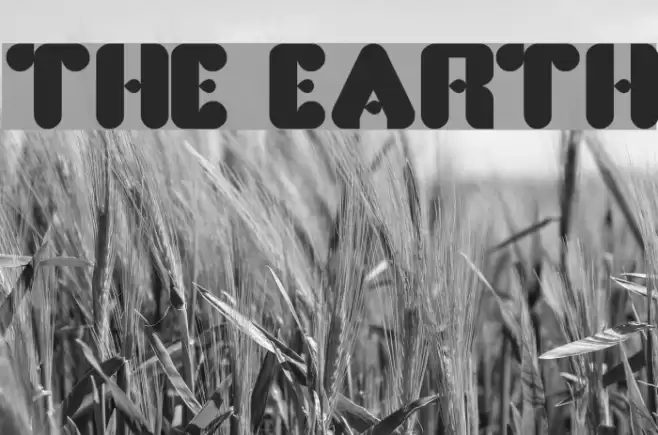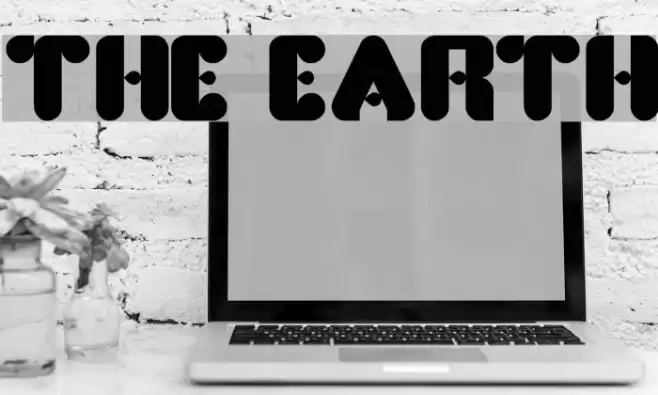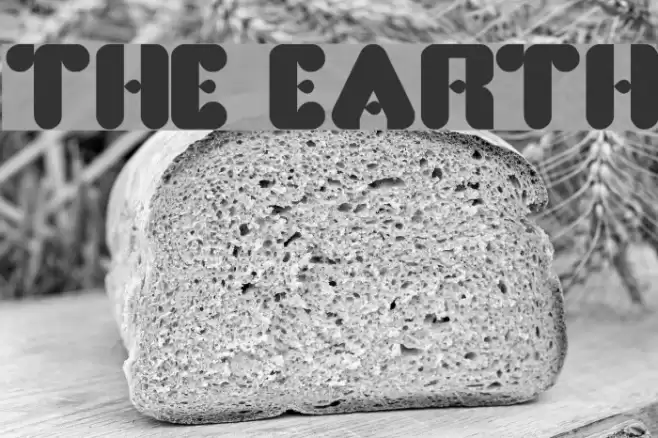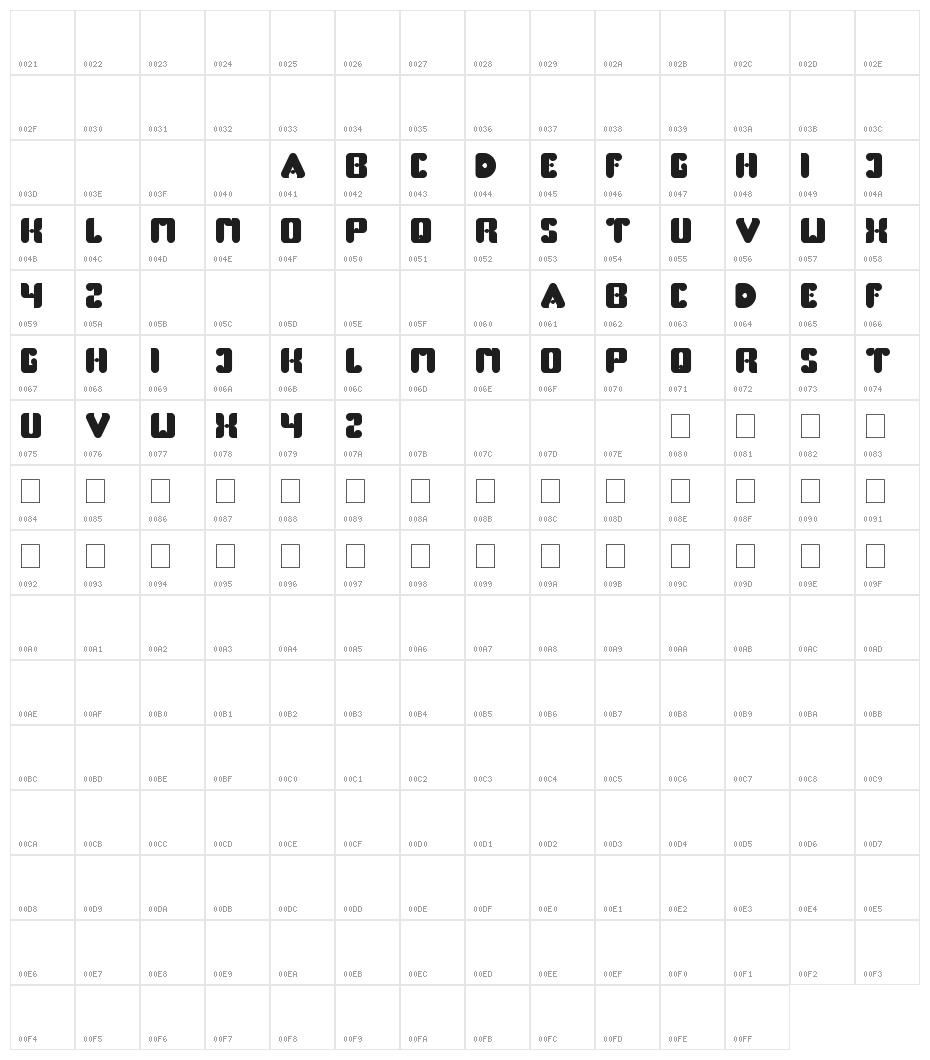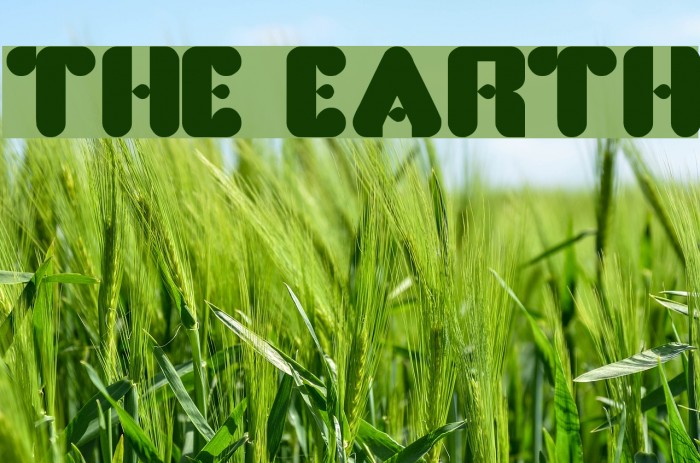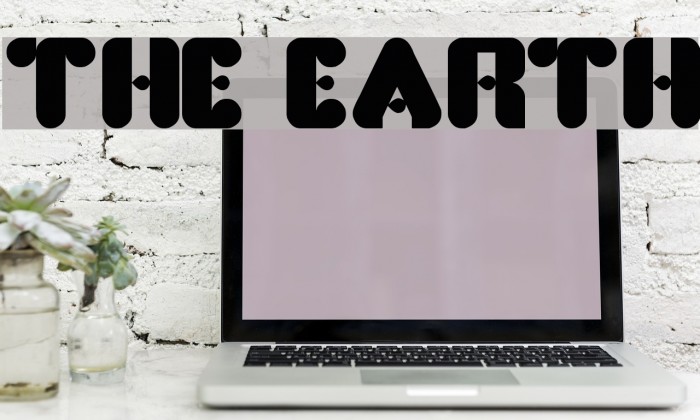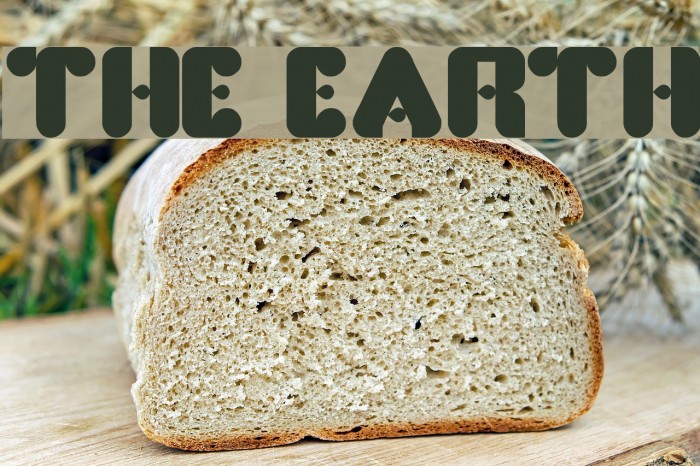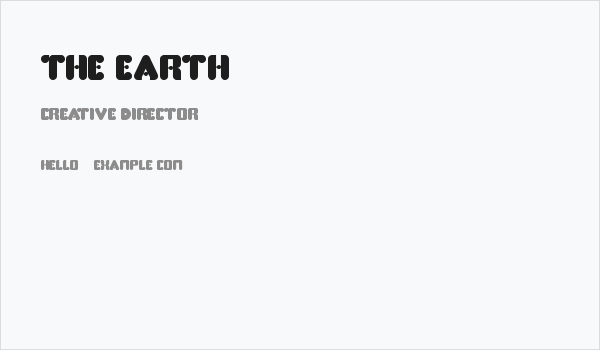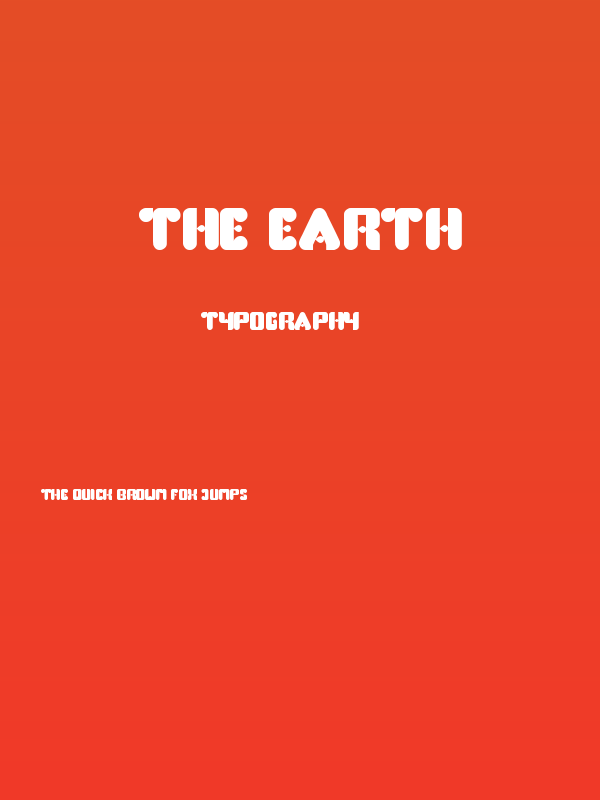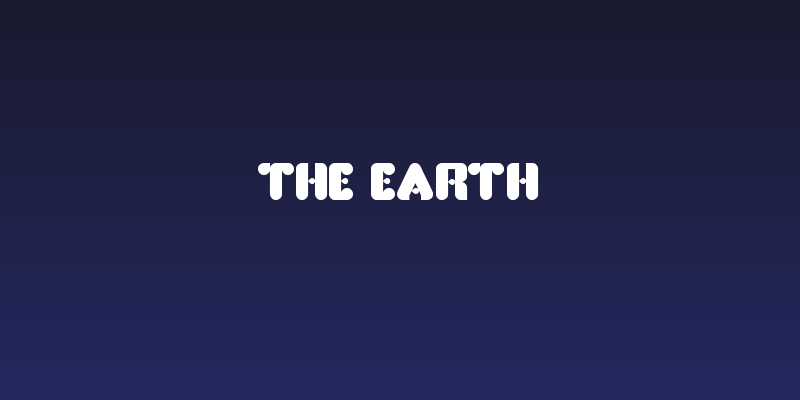
the earth Font
the earth Description
This font features a bold and geometric design with a strong emphasis on rounded shapes and thick strokes. The characters are constructed with a unique blend of circular and rectangular elements, creating a futuristic and digital appearance. The letters are uniformly bold, with consistent stroke thickness throughout, giving it a cohesive and solid look. The font's style is reminiscent of digital displays or retro-futuristic designs, making it stand out with its distinctive aesthetic. The spacing between characters is tight, enhancing the compact and robust feel of the text.
A bold, geometric font with a futuristic, digital aesthetic from Uncategorized fonts.
- Proposed Projects: Ideal for technology-themed projects, digital displays, video game graphics, and modern branding.
- Character Spacing: Tight
- Overall Style: Futuristic